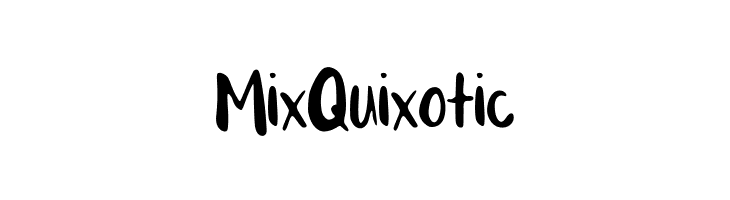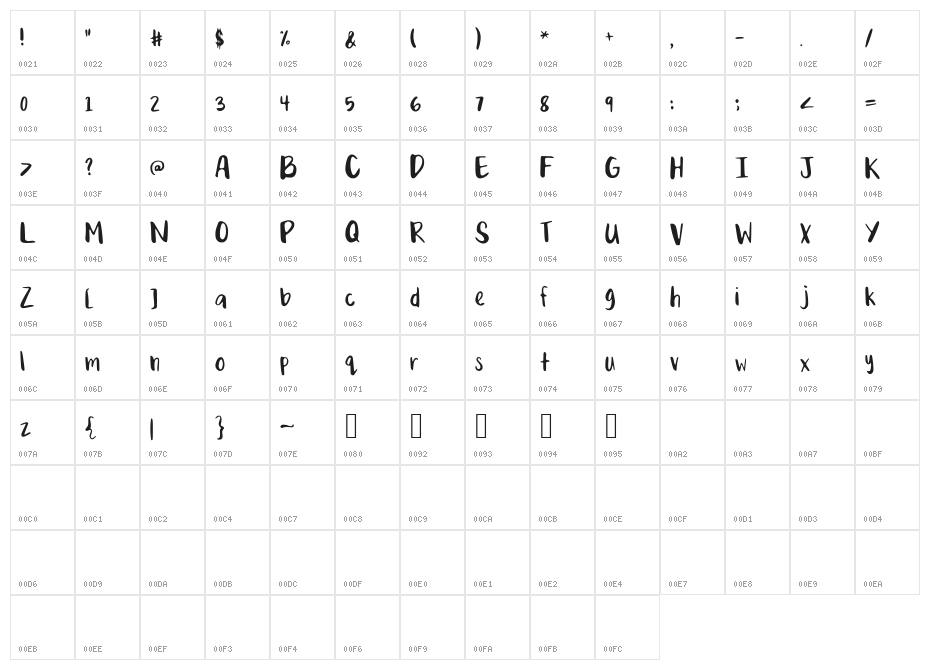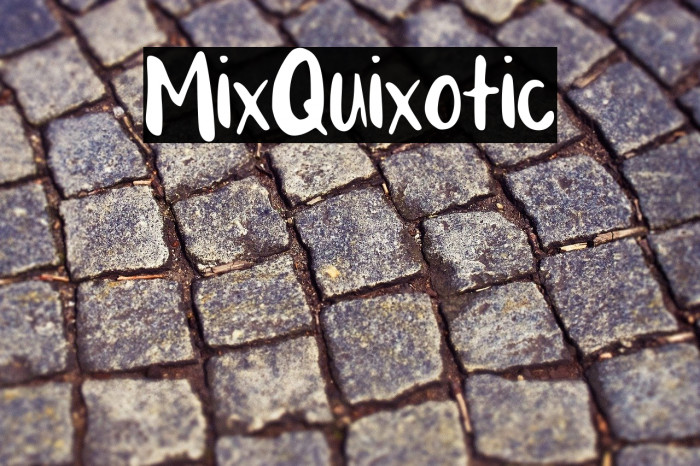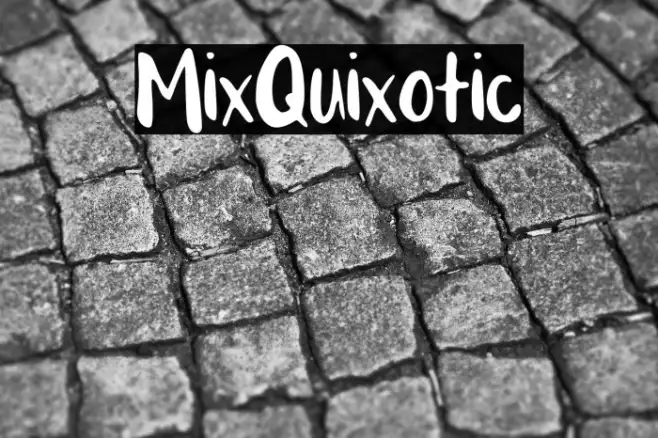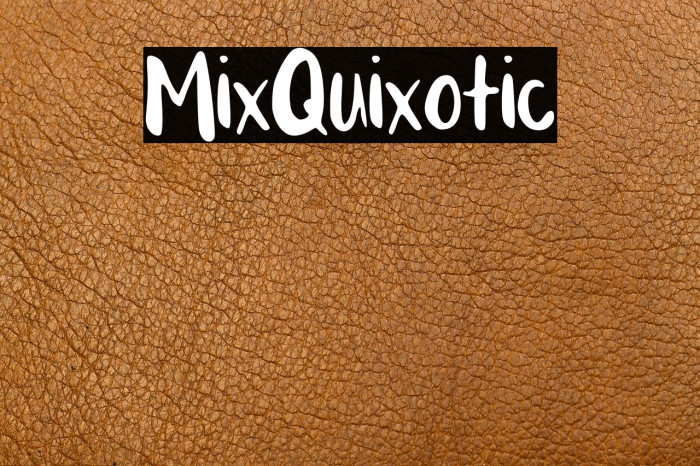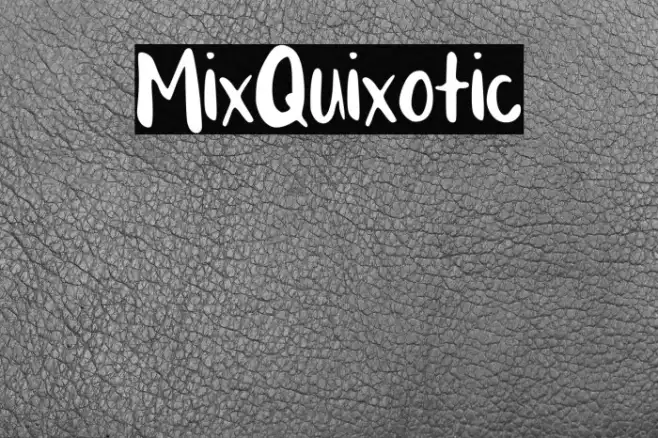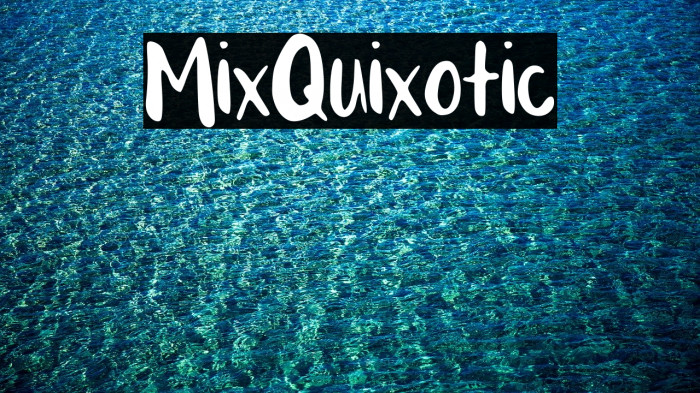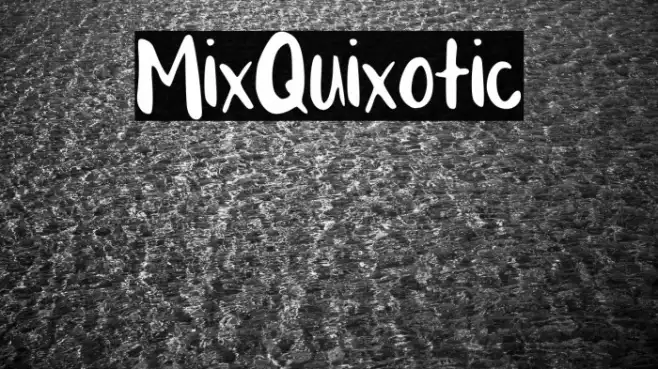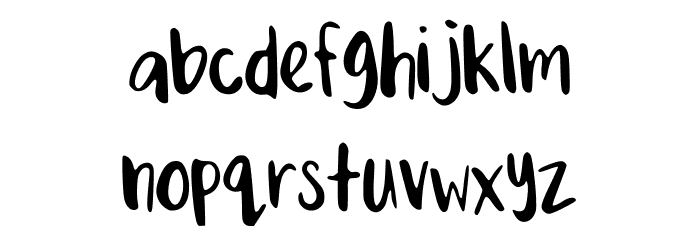
MixQuixotic Font
MixQuixotic Description
This font features a playful and whimsical style with a handwritten appearance. The letters are bold and rounded, giving a friendly and approachable feel. The uppercase characters are slightly larger and more pronounced, while the lowercase letters maintain a consistent flow. Numbers and special characters are designed to match the overall aesthetic, ensuring a cohesive look. The strokes are smooth and even, with a moderate contrast that adds to the legibility. This font is perfect for projects that require a touch of personality and creativity.
| Proposed Projects | Ideal for children's books, greeting cards, playful branding, and creative posters. |